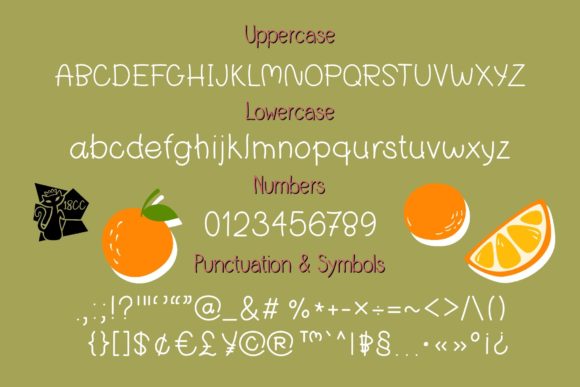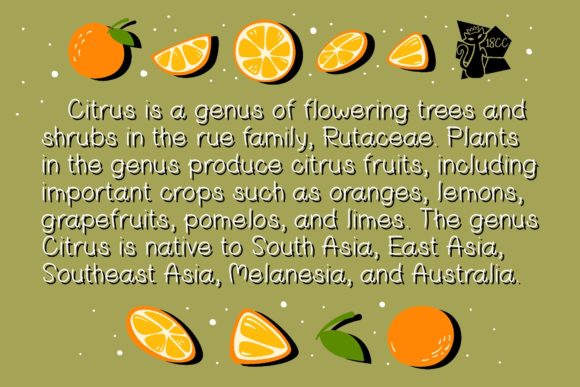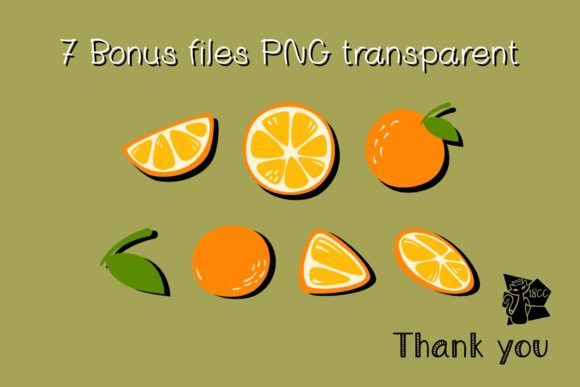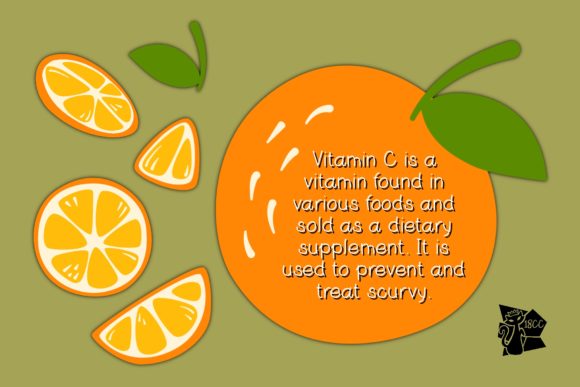
Unleash Your Creativity with the Perfect Chalkboard Font
| 📌 Product Name | Citrus Font |
| 👤 Author | DREAMs Soul G. |
Citrus Font is a charming handwritten font that’s designed specifically for chalkboard quotes and teaching materials. Its authentic look and feel will transport your audience back to those carefree days. Whether you’re creating a motivational poster, a educational brochure, or a social media graphic, Citrus Font is the perfect choice to add a personal and realistic touch.
With Citrus Font, you can bring a sense of warmth and approachability to your designs, making them more relatable and engaging. Its versatility and charm make it a valuable addition to any designer’s toolkit, and we can’t wait to explore its features and uses in this article!
Citrus Font Key Features
- Font Family: Citrus Font is a modern sans-serif font with a unique blend of rounded edges and geometric shapes.
- Character Count: Citrus Font contains over 1000 glyphs, including a wide range of language support and special characters.
- Font Size: Available in 6 font weights, ranging from Light to Extra Bold, to cater to various design needs.
- Resolution: Designed to work seamlessly at high resolutions, making it ideal for digital and print media.
- Unique Characteristics: Citrus Font features a distinctive rounded corner design, giving it a friendly and approachable feel.
Citrus Font Review
Overall, I’m really enjoying the Citrus Font. It’s a beautiful, modern sans-serif font that’s perfect for a variety of projects. Here are some things that work well:
- ✨ Friendly and approachable tone: Citrus Font has a very inviting feel to it, making it great for projects that need a personal touch.
- ✨ Wide range of applications: The font is suitable for both digital and print projects, from signage to branding materials.
- ✨ Stylish and modern: Citrus Font has a sleek, contemporary look that’s perfect for modern designs.
- ⚠️ Limited character set: The font doesn’t include as many characters as some other fonts, which may be a problem for projects that require a wide range of special characters.
- ⚠️ Not ideal for small text: The font can be a bit difficult to read at small sizes, which may make it less suitable for projects that require a lot of small text.
Overall, I think Citrus Font is a great addition to any designer’s toolkit. While it may have some limitations, its friendly tone and modern style make it a versatile and effective choice for a variety of projects.
To get the most out of Citrus Font, try combining it with bold or italic styles for emphasis. Use it in headings and subheadings to create a visually appealing hierarchy of text. Experiment with different font sizes and colors to create a unique look.
Citrus Font is perfect for food and beverage branding, as well as creative and playful designs. Use it for logos, menus, and advertisements to create a fun and inviting atmosphere.
Alex Brush is a stylish, handwritten font that’s great for use in creative and artistic projects. It’s perfect for adding a personal touch to your designs and can be used in a variety of contexts, from branding and advertising to editorial and publishing. Alex Brush is more rough-around-the-edges than Citrus Font, making it a great choice for designers who want to add a bit of edge to their work.
Carolyna Pro is a modern, elegant script font that’s perfect for use in high-end branding and design projects. It’s ideal for adding a touch of sophistication and glamour to your work, and can be used in a variety of contexts, from fashion and beauty to luxury goods and services. Carolyna Pro is more refined and polished than Citrus Font, making it a great choice for designers who want to add a bit of luxury to their work.